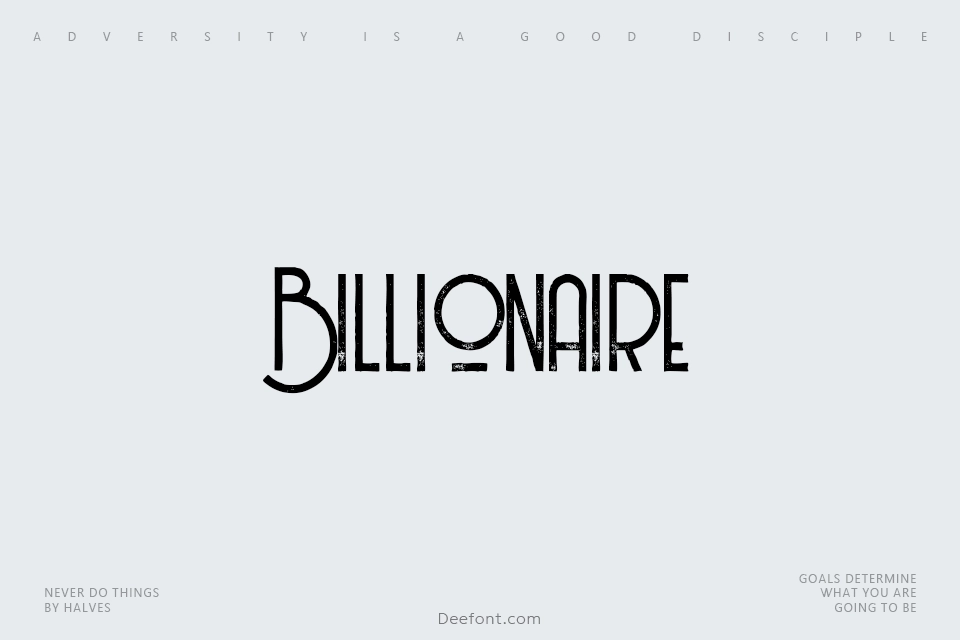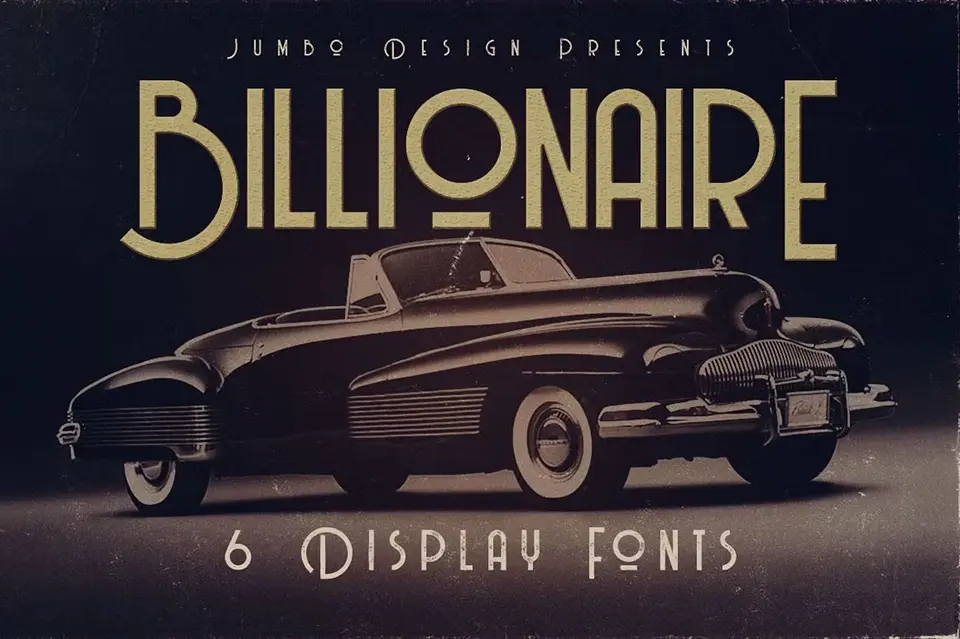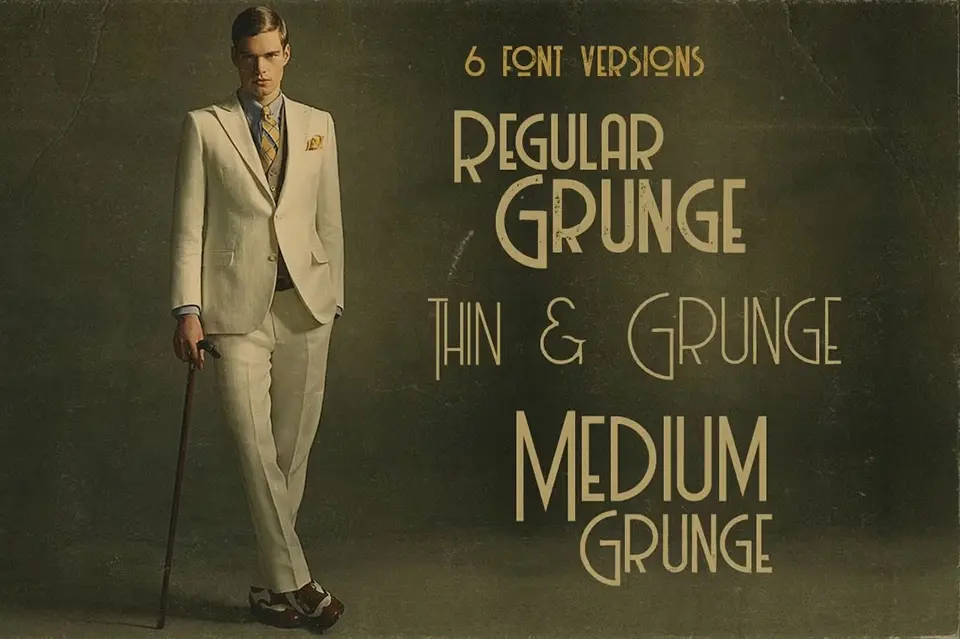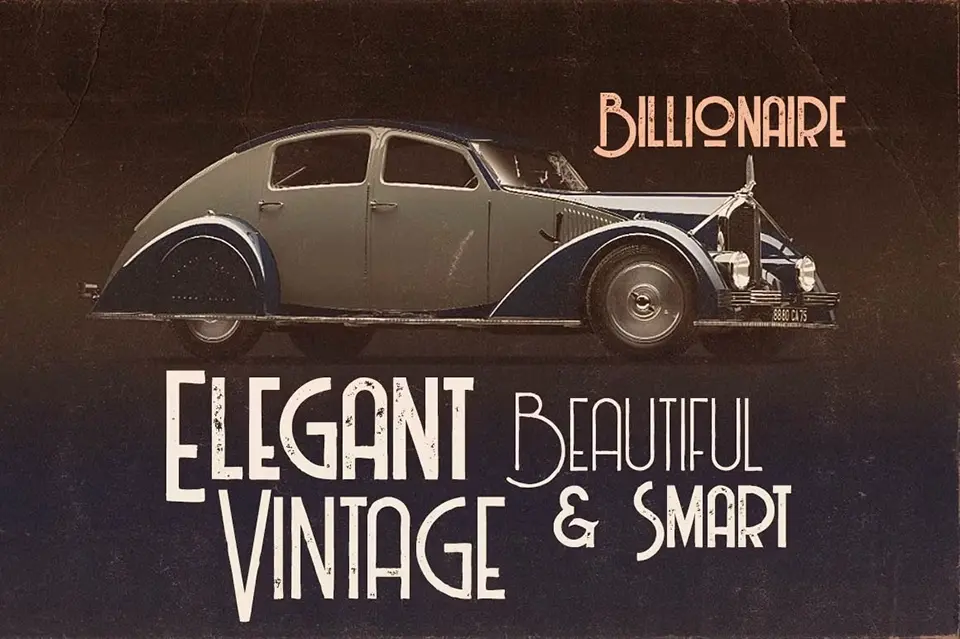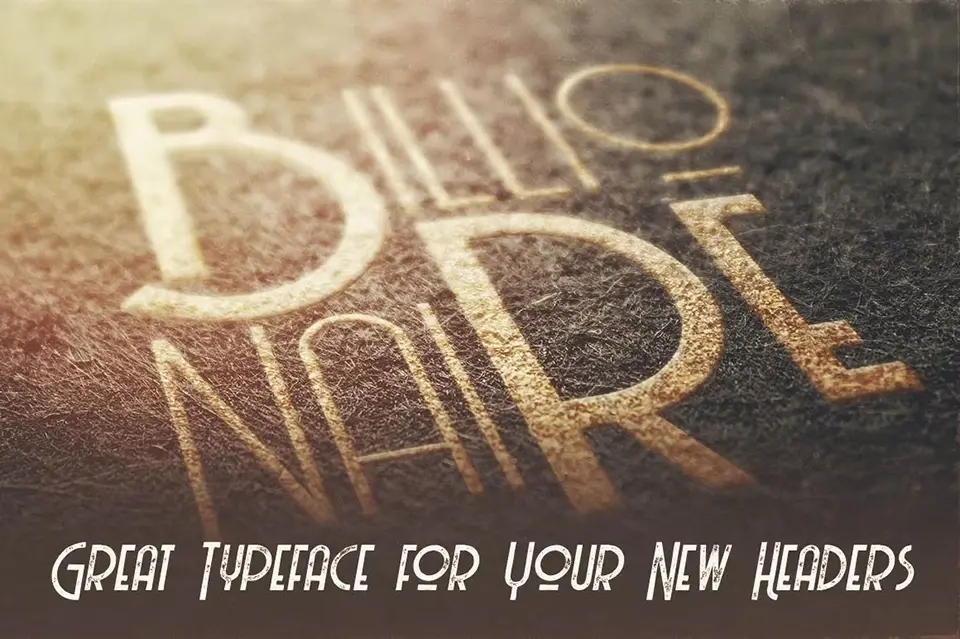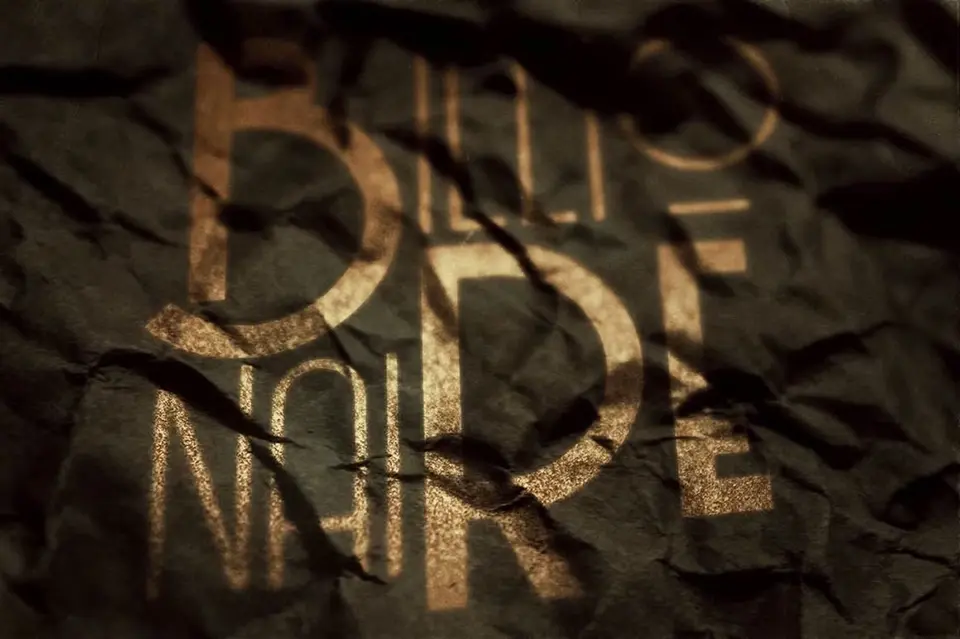
Billionaire Font
Billionaire is a vintage-inspired Art Deco display font designed by Peter Olexa, featuring a unique retro sans serif style with an eroded grunge aesthetic. The complete family includes six font variations: regular, grunge, thin, thin grunge, medium, and medium grunge. Perfect for creating sophisticated typography in posters, logos, magazine titles, clothing labels, badges, and brand designs. This striking typeface combines elegant capital letters with distinctive curved terminals, making it ideal for professional branding and eye-catching headlines. The font brings sophisticated charm and professional reliability to any creative project seeking a nostalgic yet modern visual identity.